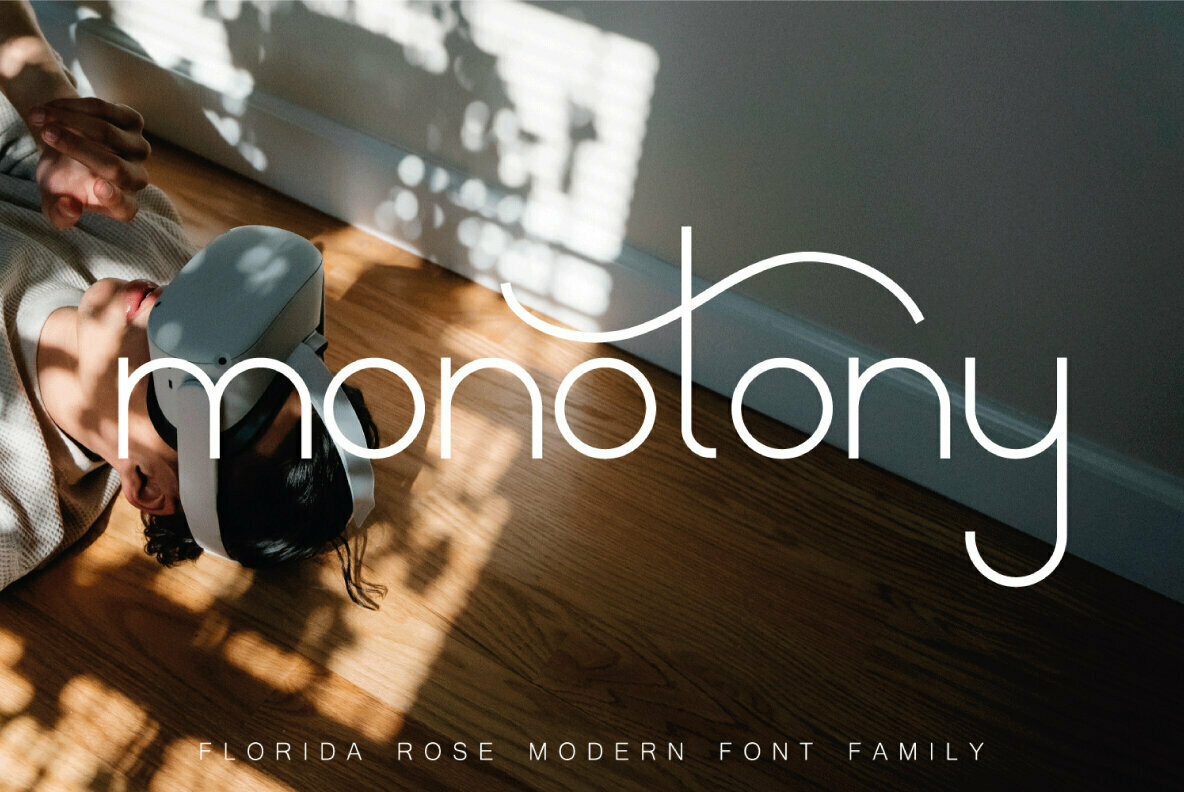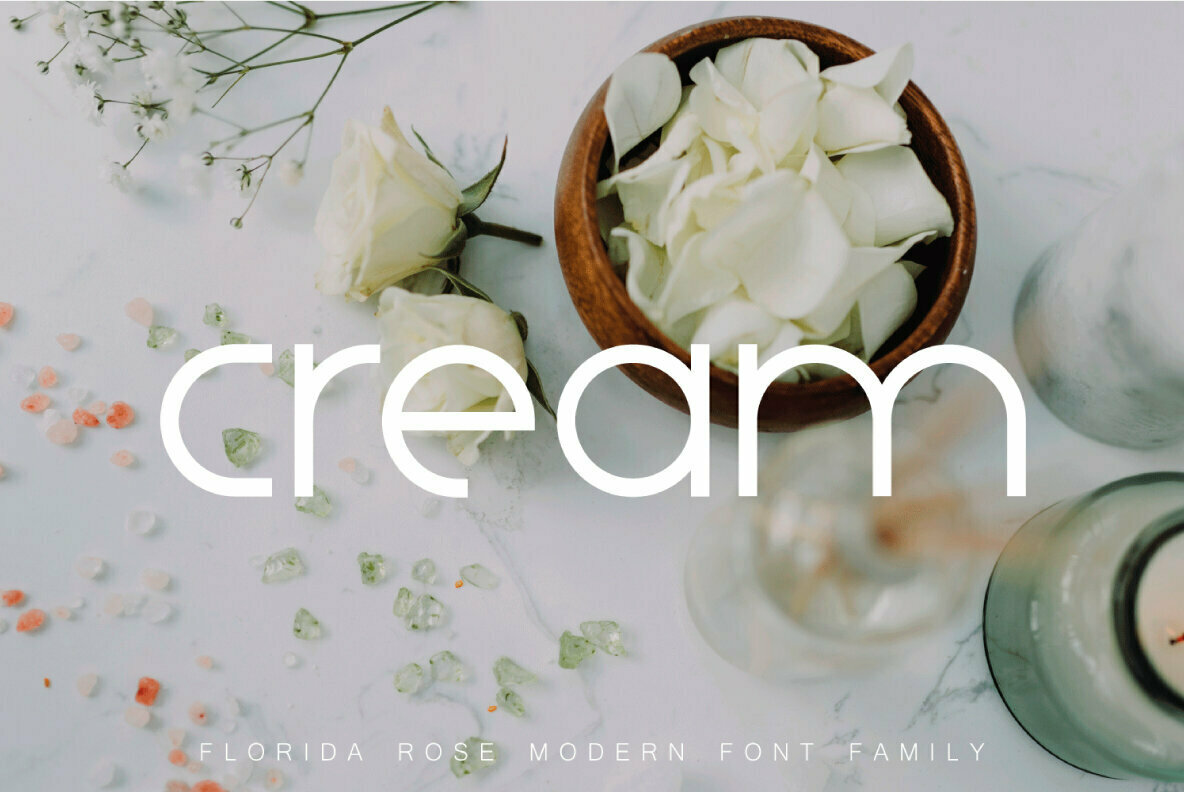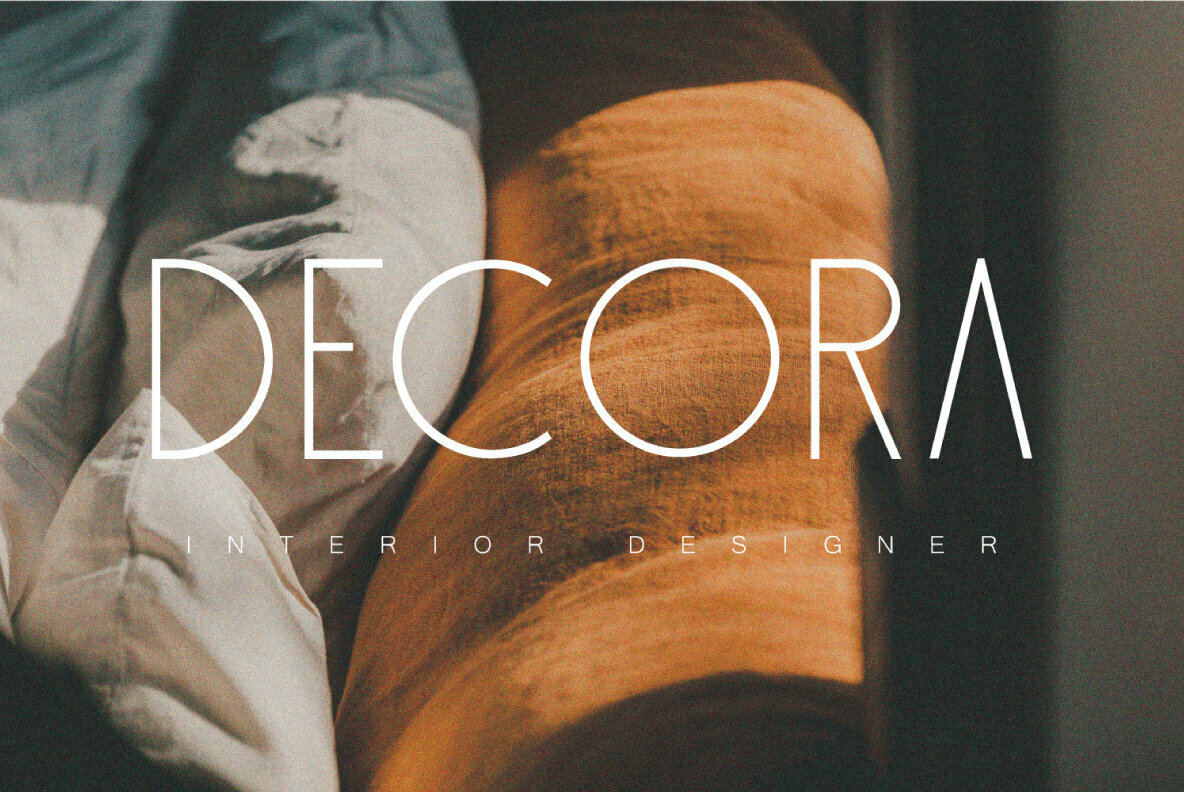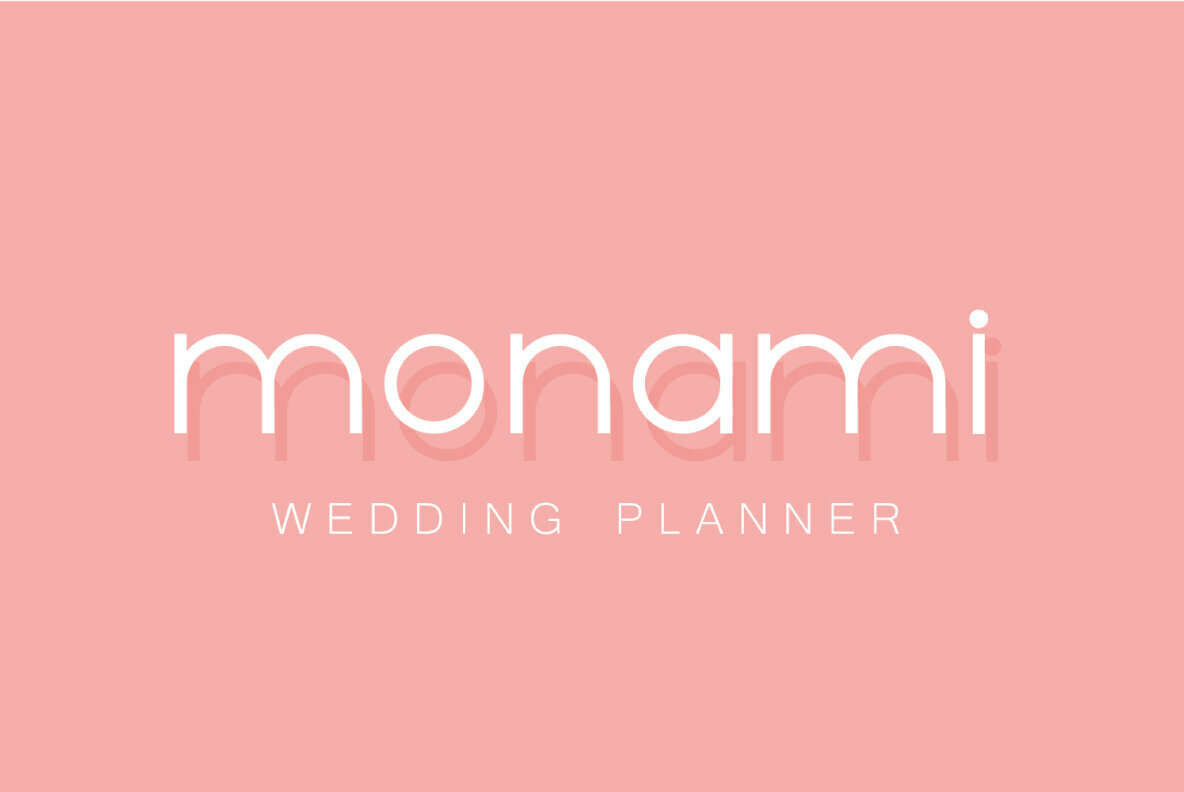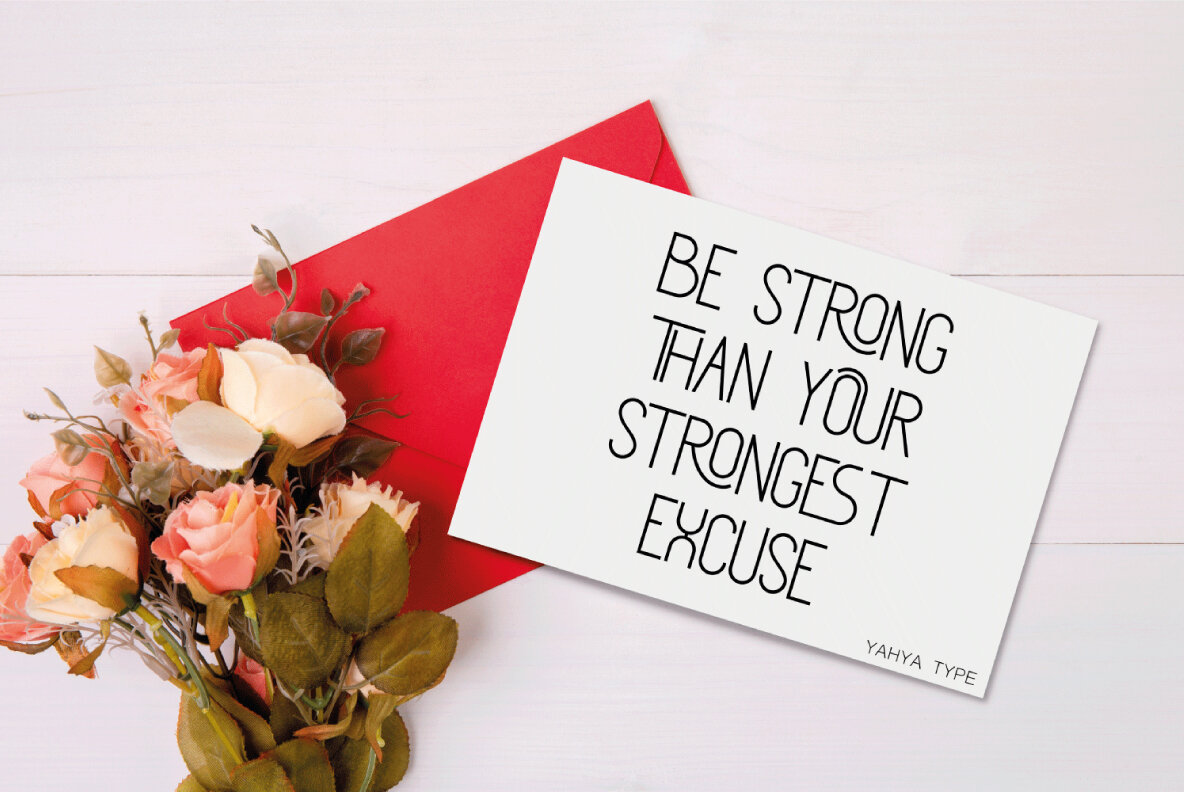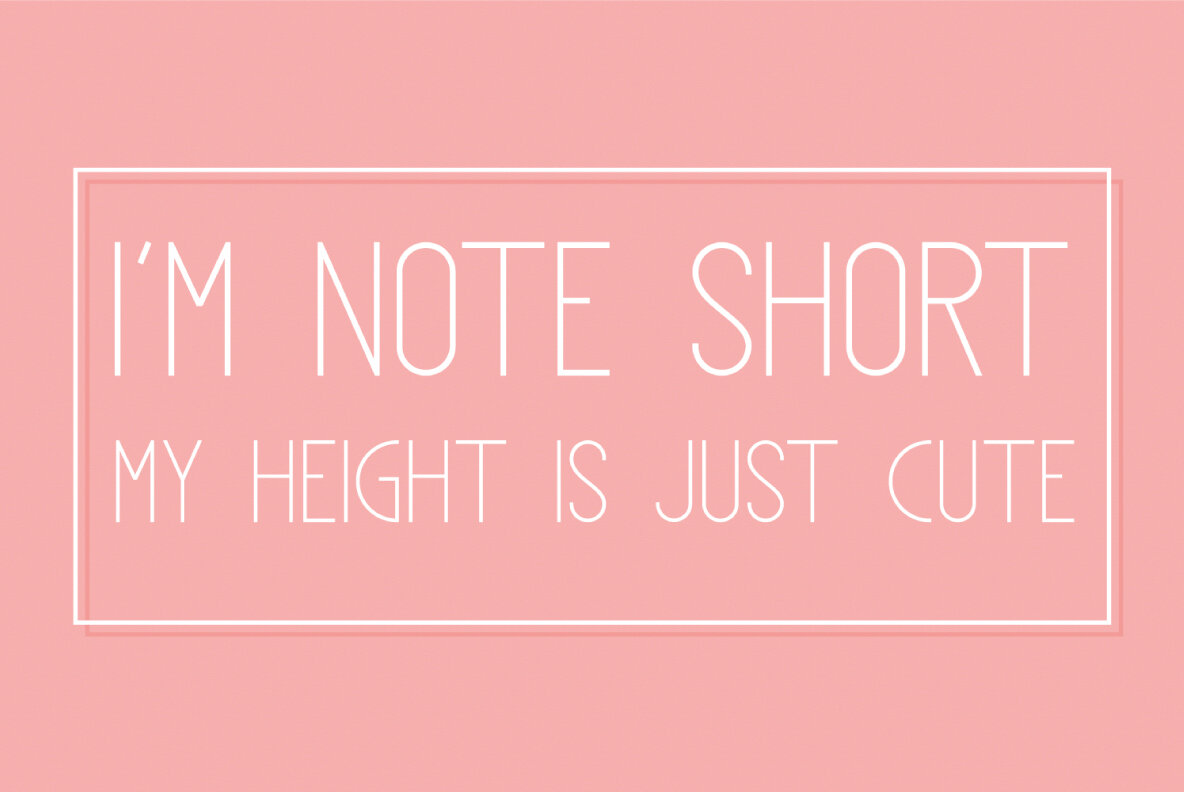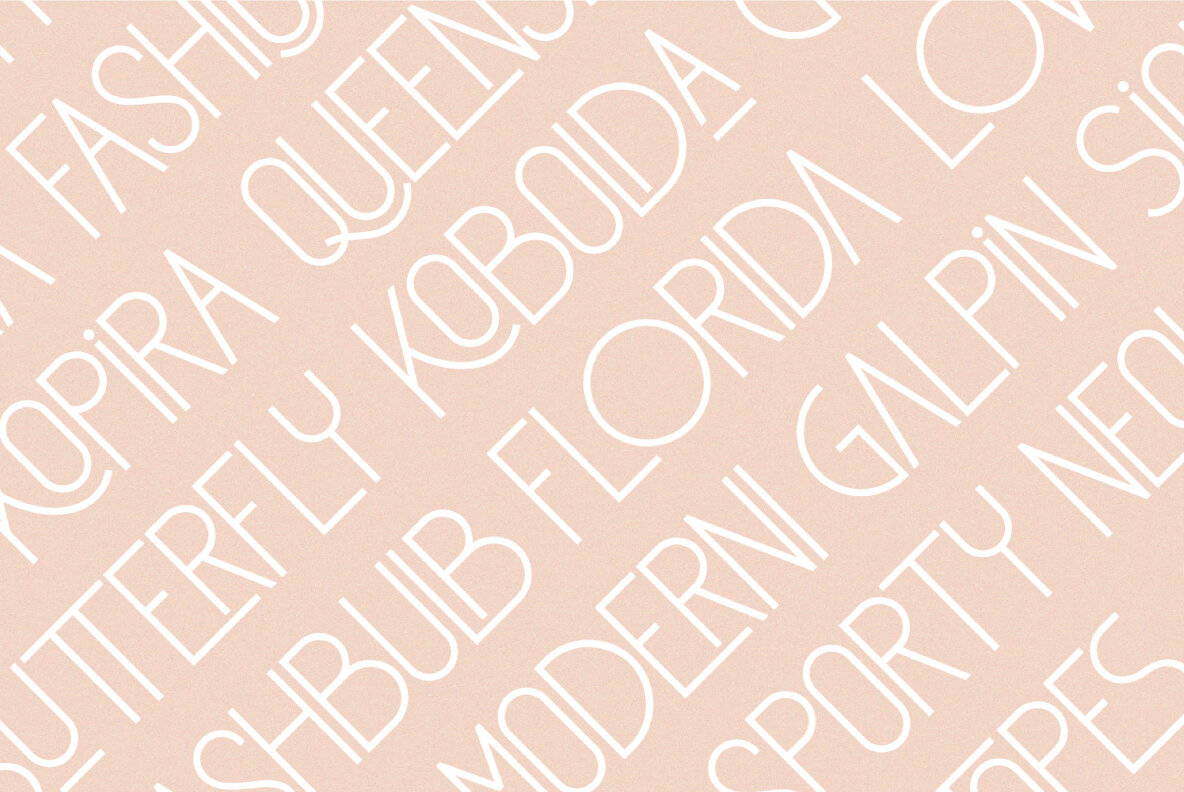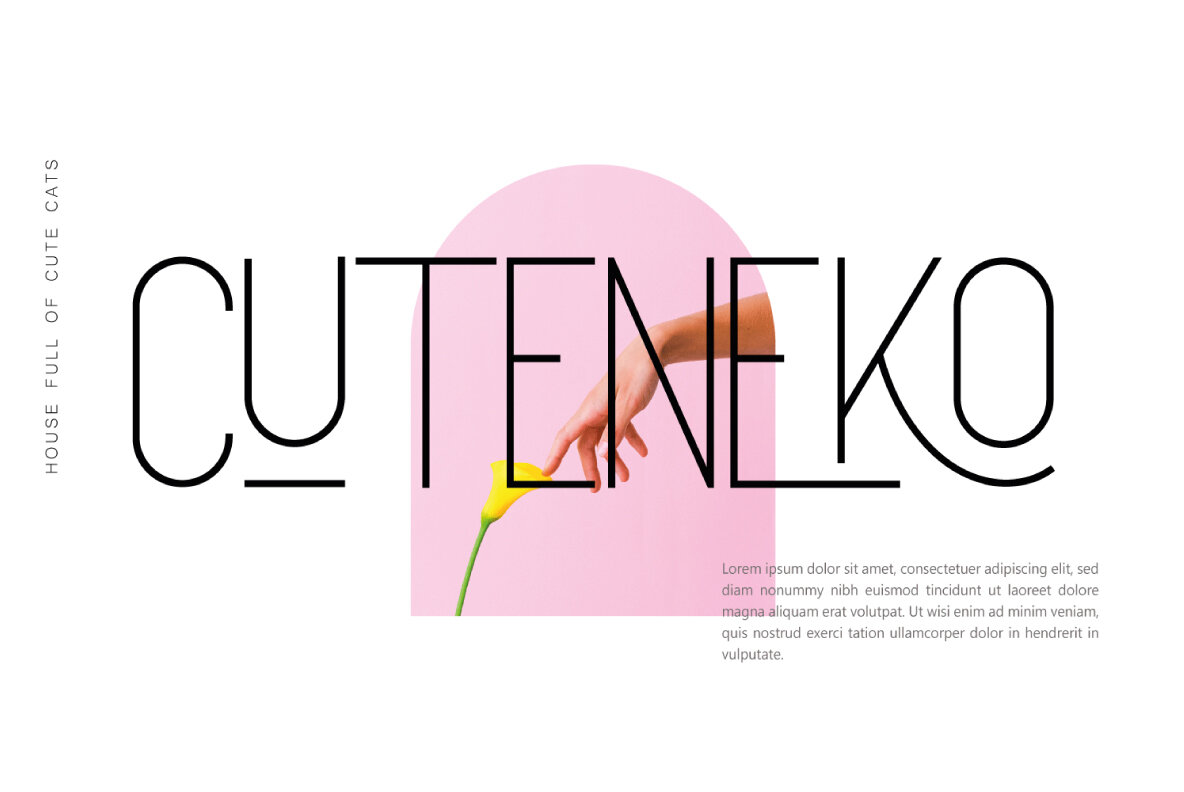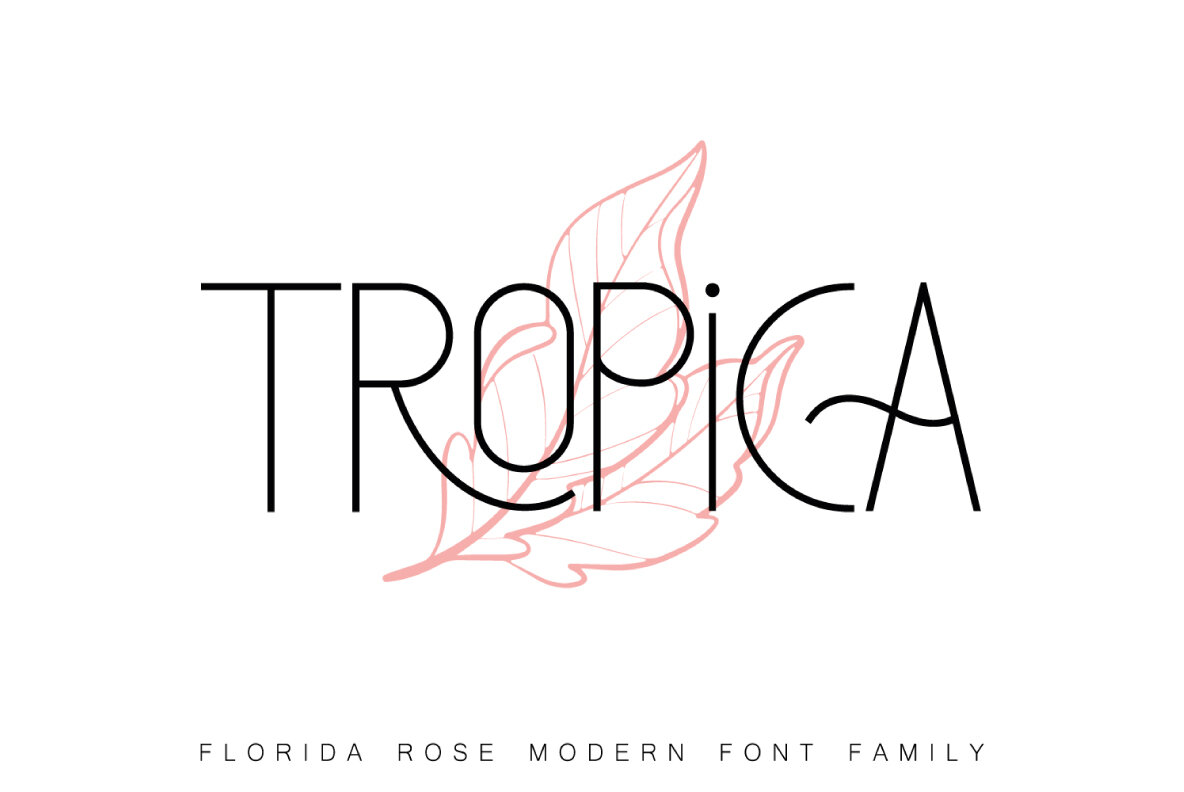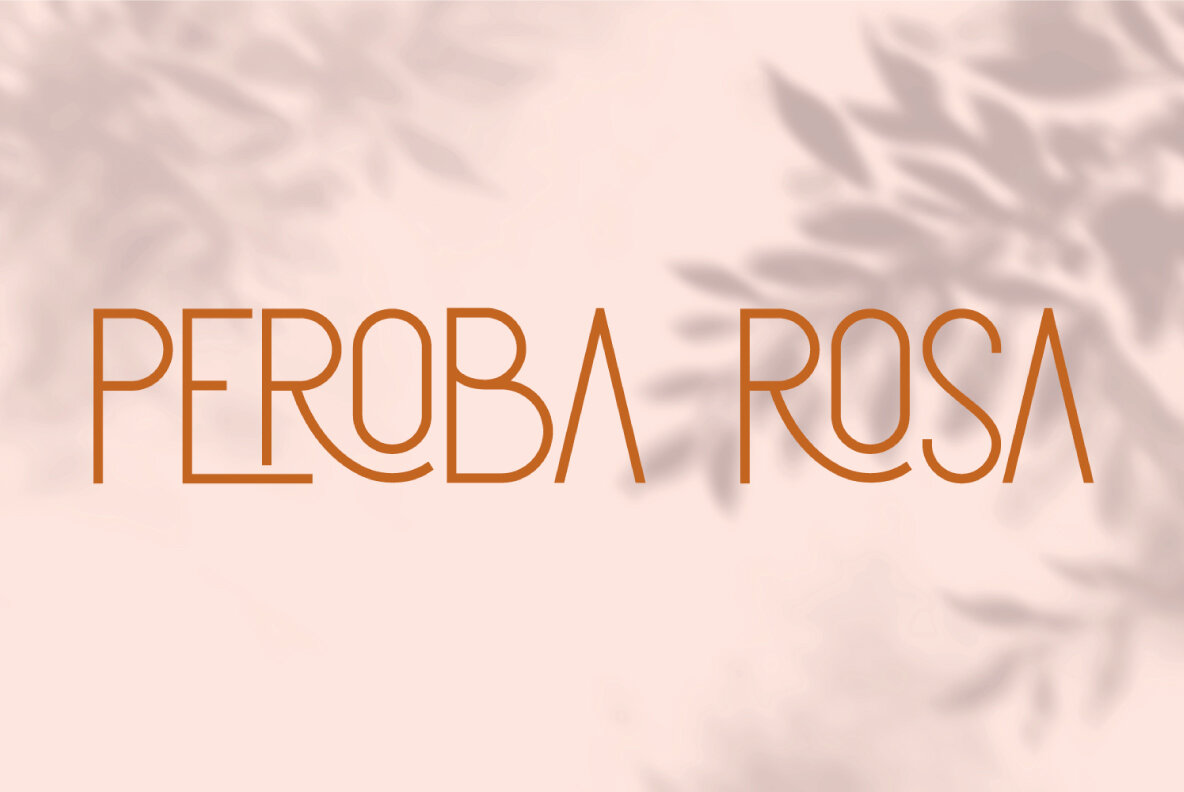
Florida Rose Font
Florida Rose emerges as a sophisticated iteration of the Peroba Rosa Font, offering a unique combination of modernity, classical inspiration, and playful elements. This contemporary sans serif family is characterized by its clean lines and well-proportioned structures, providing a sense of timelessness and visual appeal. Its versatile nature makes it an excellent choice for a wide array of creative projects, from logo design and magazine headers to product packaging and branding endeavors. Florida Rose also serves well as a stylish text overlay for images and websites.Florida Rose: A Modern Sans Serif Typeface